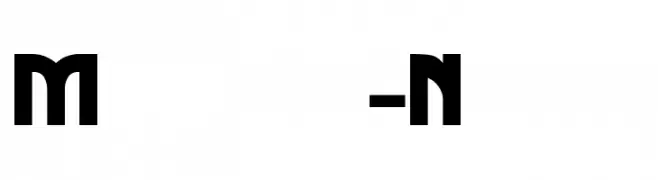
( Fonts by Nick Curtis - www.nicksfonts.com )
A playful, bold font with unique, whimsical letter shapes.
( Fonts by Mike Lecky - www.superfunk.com )
A bold, distressed font with a grunge aesthetic and rough edges.
( Fonts by Levi Halmos )
A spooky, flame-like font with jagged edges and a mysterious style.
A modern, geometric font with clean lines and sharp angles.
( Fonts by Dieter Schumacher )
A bold, cinematic font styled like movie clapperboards.
( Fonts by Nick Curtis - www.nicksfonts.com )
A bold, geometric font with high contrast and unique character shapes.